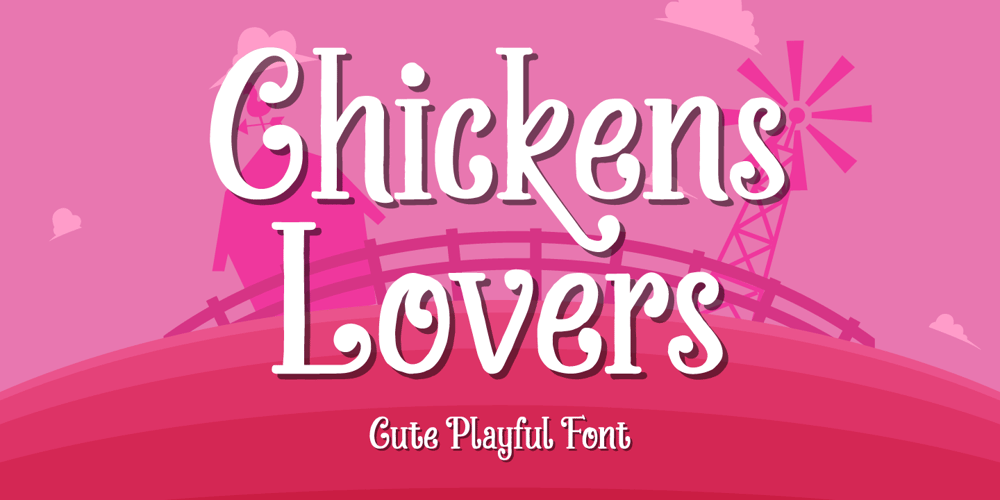
Chicken Lovers Font Family was designed by Abdul Malik Wisnu and published by Almarkha Type. Chicken Lovers contains 1 styles and family package options. Chickens Lovers is a cute & playful display font that will make your designs look modern, unique and fun.It’s perfect for labels, quotes, posters, DIY projects, branding, packaging, greeting cards, websites, photography overlays, signs, window art, scrapbooking, tags and so much more!